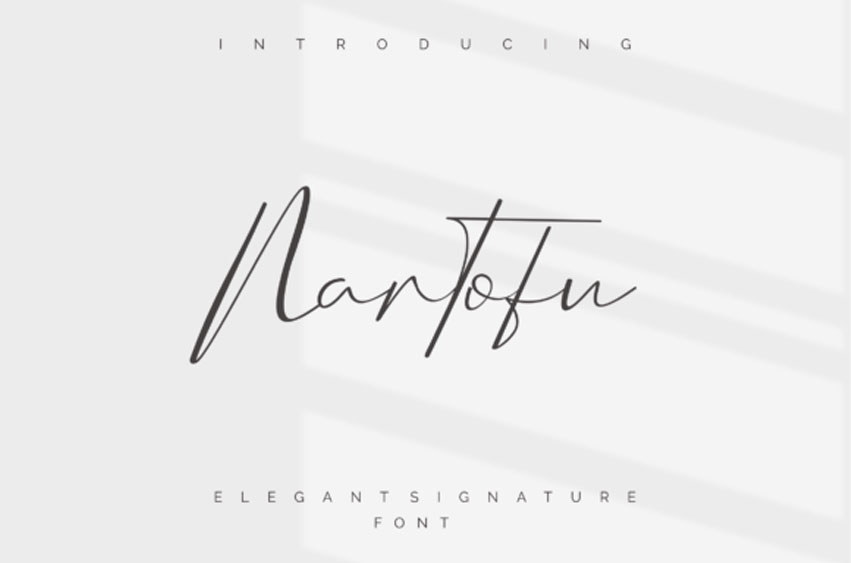
Nartofu Font is a delicate and elegant handwritten font. Its distinct and well-balanced letters make this font a masterpiece.
Fall in love with its incredibly versatile style and use it to create spectacular designs!